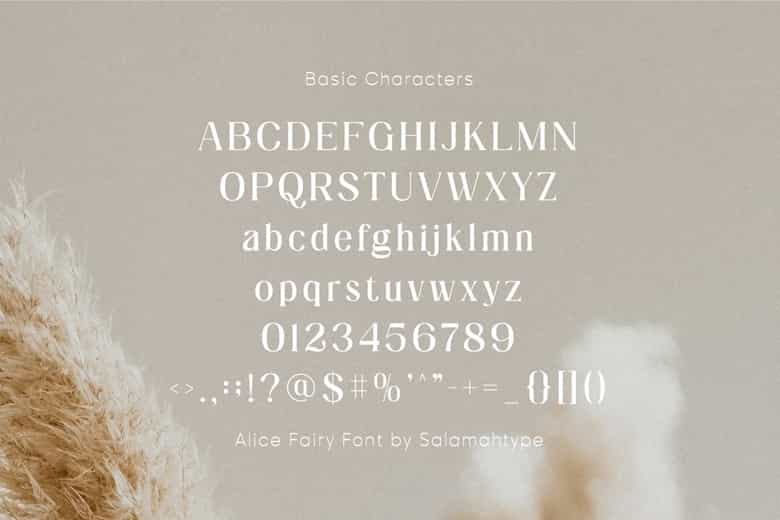
Alice Fairy is an elegant and neutral serif typeface ideal for anyone who wants to refine their designs. I love this one with its beautiful alternates and the decorative tails are perfect for logos, websites, magazine, posters, wedding invitations, and more.